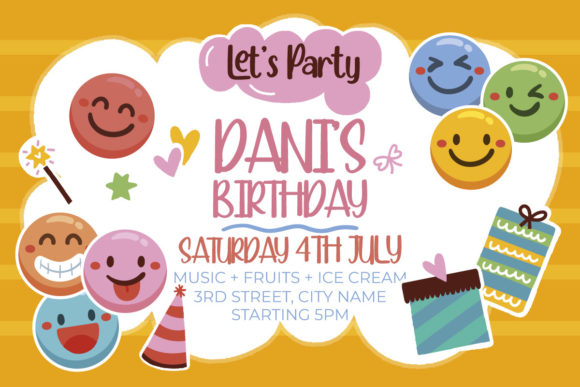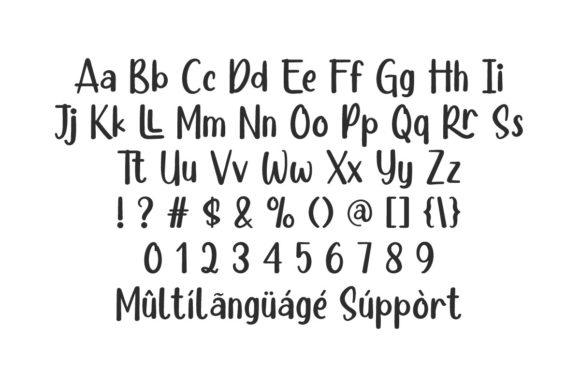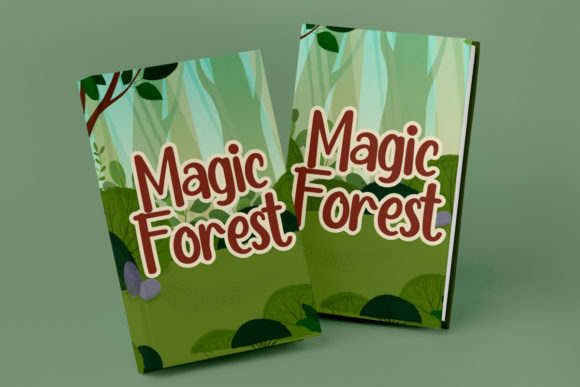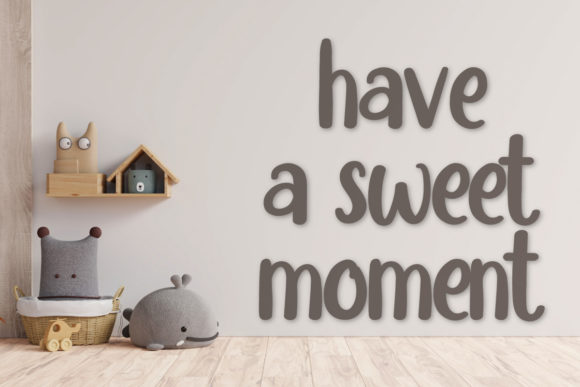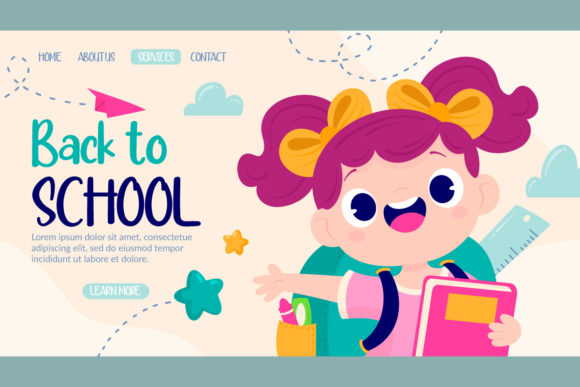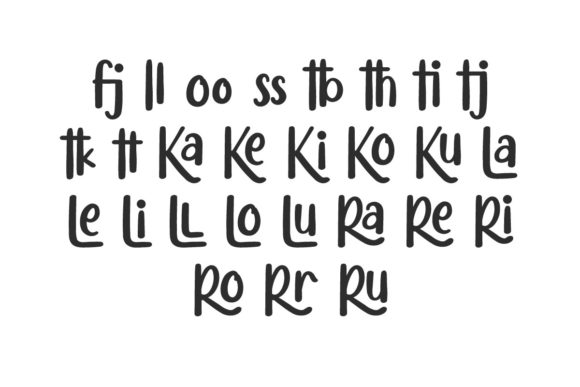
Introduction to King Cartoon Font
Have you ever stared at a blank canvas, trying to bring your creative idea to life, but struggling to find the perfect font to set the tone? That’s where the magic of King Cartoon Font comes in. This playful, hand-drawn font is designed to add a touch of whimsy and personality to any project, making it a must-have design resource for creatives.
As a designer, you know how difficult it can be to find a font that perfectly captures the essence of your brand or concept. That’s why King Cartoon Font is such a valuable addition to any design toolkit. With its high-quality, transparent background, and carefully crafted letters, this font is sure to elevate your designs and make them stand out from the crowd.
Key Features of King Cartoon Font
- High-quality, cartoon-style font perfect for creative projects.
- Transparent background, allowing for easy customization and versatility.
- Includes over 100 unique characters, including letters, numbers, and symbols, to help bring your creative project to life.
- Unique, hand-drawn design gives your creative project a distinctive and playful feel.
Honest Review: King Cartoon Font
As a designer, I’m always on the lookout for high-quality fonts to enhance my creative projects. I recently stumbled upon the King Cartoon Font, and I must say, it’s been a delightful addition to my design resources.
Here are some things that work well with the King Cartoon Font:
- Its playful and whimsical style is perfect for children’s books, cartoons, and other creative projects that require a touch of nostalgia.
- The font may not be suitable for professional or corporate projects that require a more serious tone.
Overall, the King Cartoon Font is a fantastic design resource that I highly recommend for creative projects. Its unique style and versatility make it a valuable addition to any designer’s toolkit.
King Cartoon Font is ideal for use in children’s book illustrations, cartoon-style logos, and other creative projects requiring a high quality, cartoonish feel.
For best results, use King Cartoon Font on a transparent background to achieve a clean and modern look.
Experiment with different font sizes and colors to create a unique and eye-catching design.